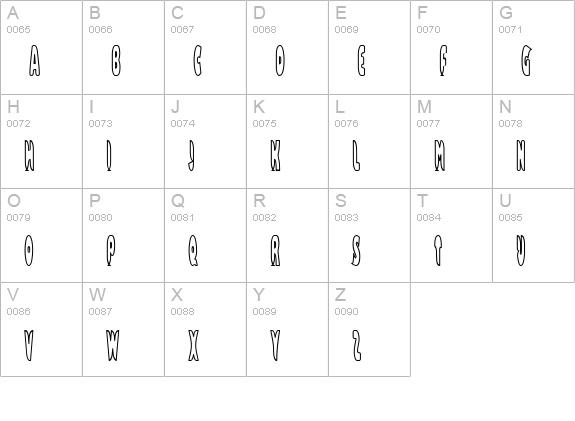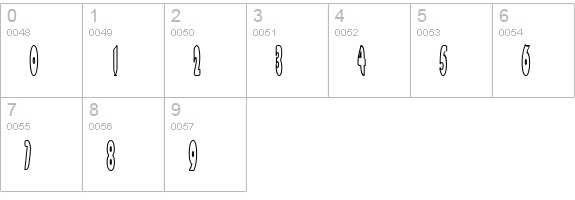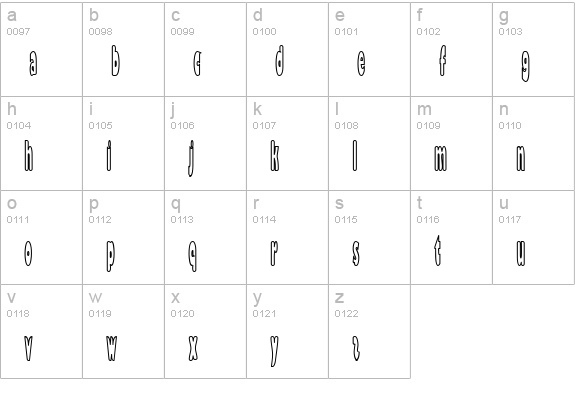
Bazzomba Font Details
Bazzomba font is a versatile and stylish typeface that exudes elegance and sophistication. With its unique blend of modern and classic design elements, Bazzomba font is perfect for a wide range of applications, from branding and marketing materials to editorial design and beyond. This eye-catching font features clean lines and smooth curves that make it easy to read while still commanding attention. Whether you're creating a logo for a high-end fashion brand or designing a sleek brochure for a technology company, Bazzomba font is sure to make a lasting impression. Best of all, Bazzomba font is completely free to download at FontsMarket.com. This means you can start using this stunning font in your projects right away, without having to worry about breaking the bank. So why wait? Download Bazzomba font today and elevate your designs to the next level.